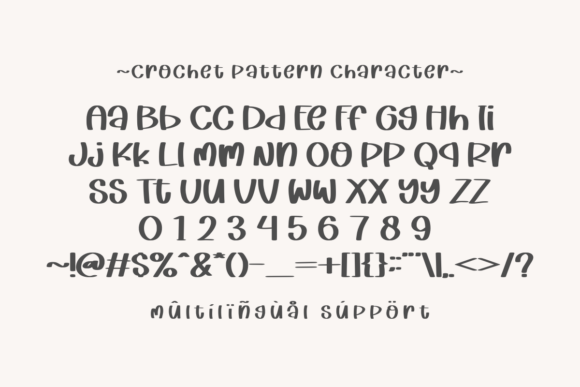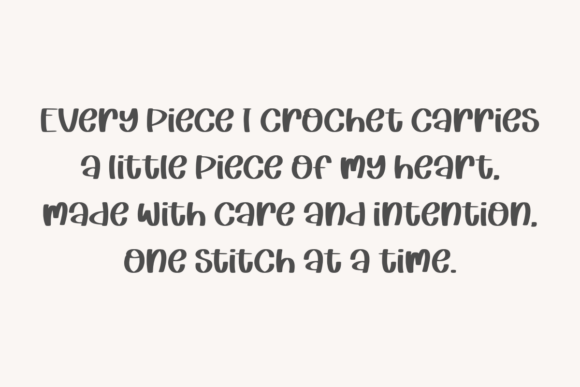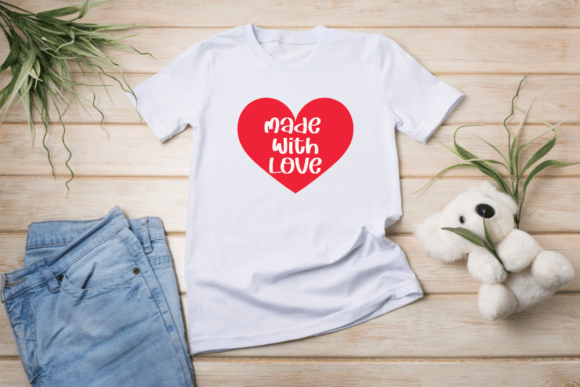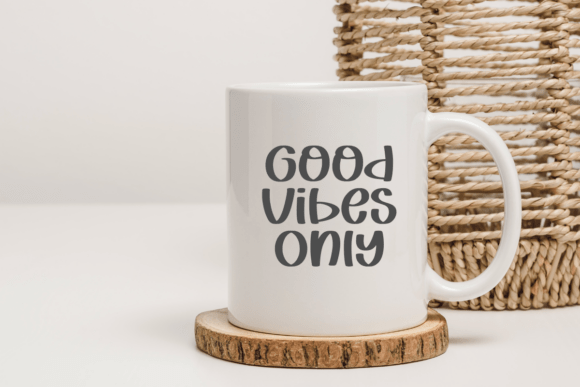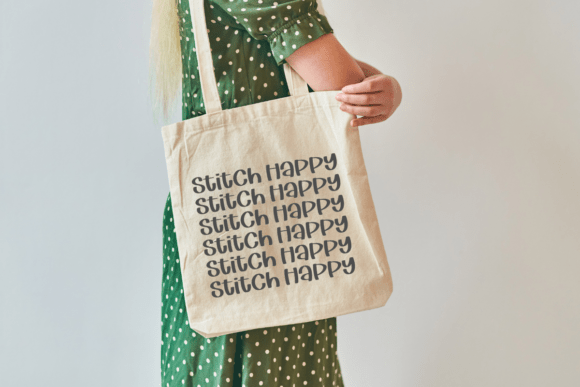
The Magic of Crochet Pattern Font: A Designer’s Delight
It’s the most wonderful time of the year – and I’m not just talking about the holiday season! As a designer, I’m always on the lookout for that perfect font to make my projects shine. I recall a particularly stressful design moment when I was working on a festive card project for a client. I had all the design elements ready, but I just couldn’t find the right font to tie everything together. That’s when I stumbled upon the Crochet Pattern Font – and it was love at first sight! 🎉
A Festive and Fun Sans Serif Font
Crochet Pattern is a festive and fun sans serif font that’s perfect for adding a touch of holiday cheer to your designs. With its playful curves and bold lines, this font is ideal for creating cards, invitations, and other holiday-themed graphics. Whether you’re a designer, crafter, or creative hobbyist, this font is sure to bring a smile to your face and a dash of festive flair to your work.
My Honest Review
So, what do I love about Crochet Pattern Font? 🤔 Here are a few things that make it a standout:
- ✨ Playful and fun: This font is perfect for creating festive and playful designs that are sure to bring a smile to your face.
- ✅ Easily readable: Despite its playful nature, Crochet Pattern Font is surprisingly easy to read, even at smaller font sizes.
- 🎉 Versatile: This font is perfect for a wide range of design projects, from holiday cards and invitations to social media graphics and more.
Of course, no font is perfect, and there are a few small quirks to be aware of:
- ⚠️ Limited use outside of holiday season: Let’s face it – this font is specifically designed for the holiday season, so it may not be the best choice for non-holiday projects.
- 🤔 Some letters may be a bit too playful: While the playful nature of the font is part of its charm, some letters (like the lowercase “q” and “x”) may be a bit too stylized for certain design projects.
The Story Behind Crochet Pattern Font
Crochet Pattern Font was designed with the holiday season in mind. The designer wanted to create a font that would capture the playful, festive spirit of the holidays – and we think they succeeded! With its bold lines and playful curves, this font is sure to bring a touch of holiday cheer to your designs.
| Font Name | Crochet Pattern Font |
| Author | CraftedType Studio |
| What is Crochet Pattern Font? | Crochet Pattern Font is a festive and fun sans serif font that’s perfect for adding a touch of holiday cheer to your designs. |